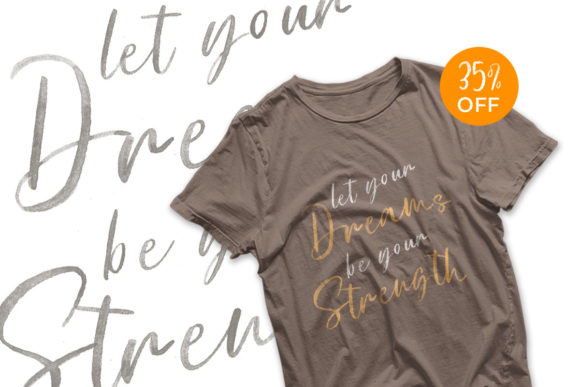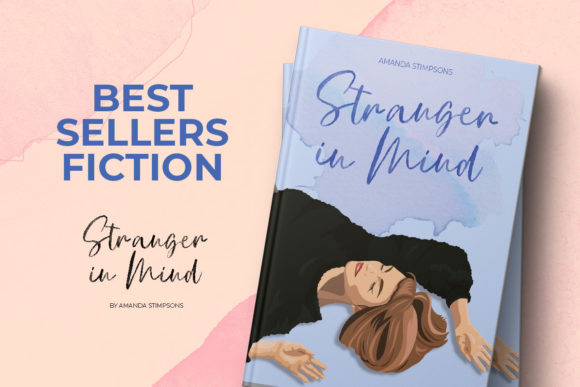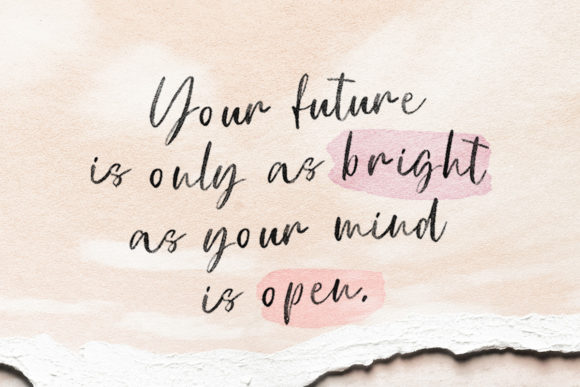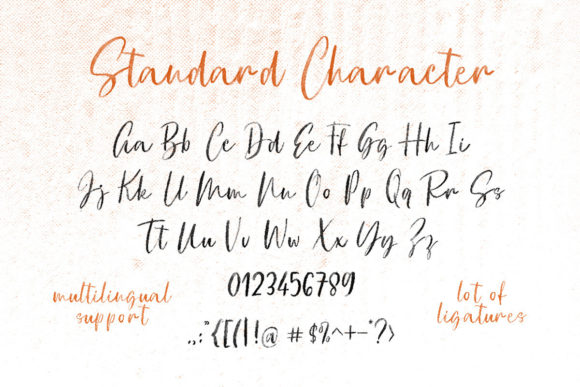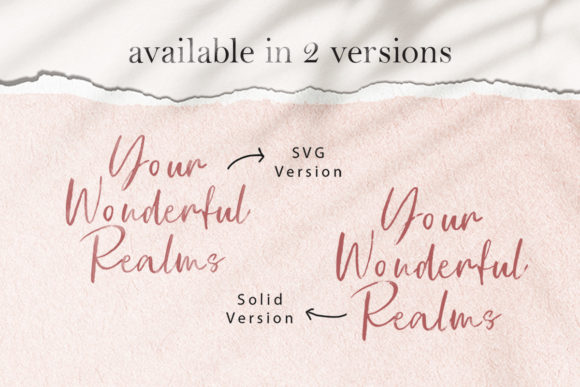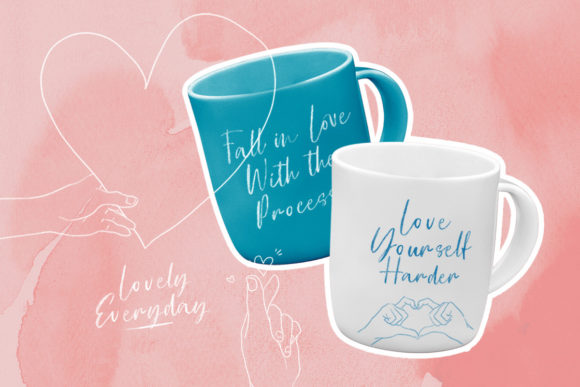
Introduction to Mina Jackstone Font
Have you ever found yourself stuck in front of a blank canvas, searching for the perfect font to bring your creative project to life? It’s a moment we’ve all experienced as designers, and it’s exactly what makes discovering a high-quality font like the Mina Jackstone Font so exciting.
With its perfectly crafted script design, the Mina Jackstone Font is a versatile and elegant choice for any creative endeavor. Whether you’re working on invitations, labels, logos, or magazine layouts, this font is sure to add a touch of sophistication and style to your design. And the best part? The Mina Jackstone Font is available for free download, making it an invaluable resource for designers of all levels.
As a valuable addition to your design arsenal, the Mina Jackstone Font offers a transparent background, making it easy to layer and manipulate in your creative projects. Its high-quality design and free availability make it a must-have resource for any designer looking to elevate their work and take their projects to the next level.
Key Features of Mina Jackstone Font
- High-quality design: Mina Jackstone Font is a professional font perfect for creative projects that require a touch of elegance and sophistication.
- Transparent background: Mina Jackstone Font features a transparent background, allowing designers to easily integrate it with other design elements.
- High-resolution design: With a resolution of 300 DPI, Mina Jackstone Font is ideal for use in high-quality print materials, such as business cards and brochures.
- Unique characteristics: The font’s unique blend of modern and vintage elements makes it perfect for designers looking to add a touch of personality to their creative projects.
- Design resource: Mina Jackstone Font is a valuable addition to any designer’s toolkit, offering a versatile and high-quality design resource for a variety of creative projects.
Honest Review: Mina Jackstone Font
I recently had the chance to work with the Mina Jackstone Font, and I must say, it’s a game-changer for any creative project that requires a unique and elegant touch. This free download is a fantastic design resource for anyone looking to elevate their work.
Here are some of the things that stood out to me:
- ✨ High-quality typography: The Mina Jackstone Font is incredibly detailed and smooth, making it perfect for print or digital projects.
- ✨ Customizable: The font’s transparent background makes it easy to adjust and customize to fit your specific design needs.
- ✨ Versatile: Whether you’re working on a wedding invitation, a logo design, or a branding project, the Mina Jackstone Font is a great choice.
While the Mina Jackstone Font is an excellent resource, there are a few limitations to keep in mind:
- ⚠️ Limited character set: The font may not include all the characters you need for a specific language or script.
- ⚠️ Not ideal for body text: Due to its elegant and ornate design, the Mina Jackstone Font may not be the best choice for large blocks of text.
Overall, I’m thoroughly impressed with the Mina Jackstone Font. Its high quality, versatility, and unique design make it a valuable addition to any design resource collection. Just be aware of its limitations, and you’ll be all set for a beautiful and professional-looking project.
Tips for Getting the Most Out of Mina Jackstone Font
For the best results, use the Mina Jackstone Font on a transparent background to create a seamless and professional design. Experiment with different font sizes and colors to add depth and visual interest to your project.
The Mina Jackstone Font is ideal for a variety of creative projects, including branding, marketing materials, and digital designs. Its high-quality design makes it perfect for use in logos, business cards, and other visual identity elements.